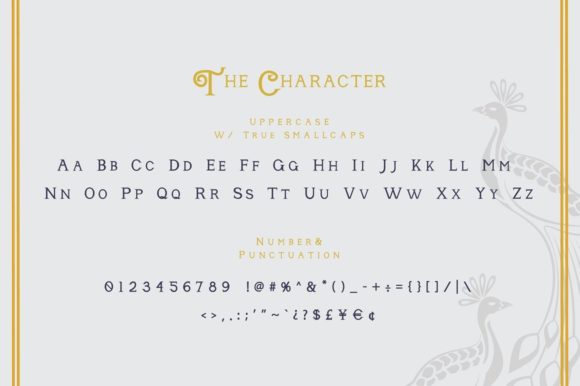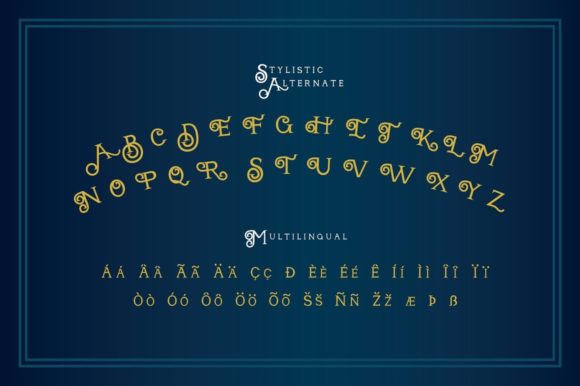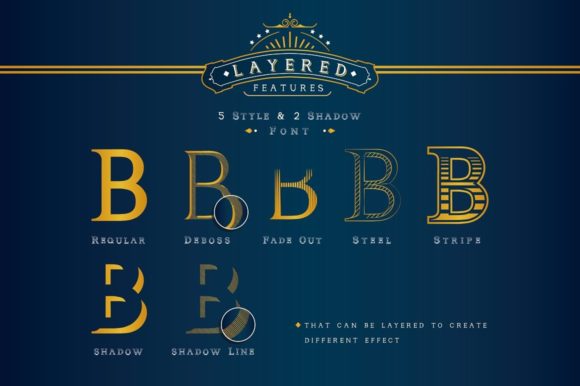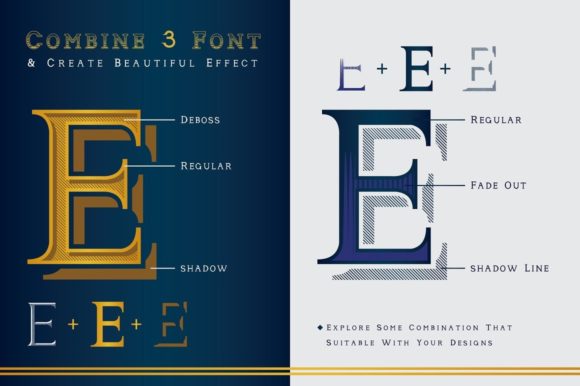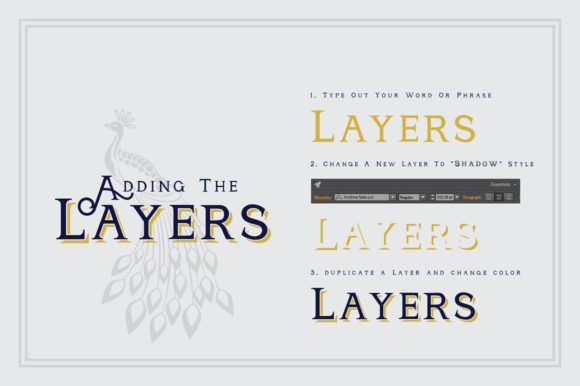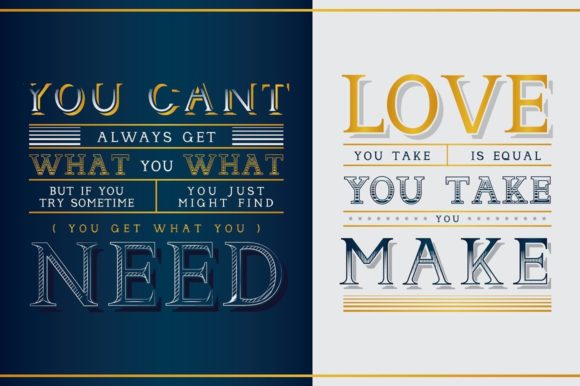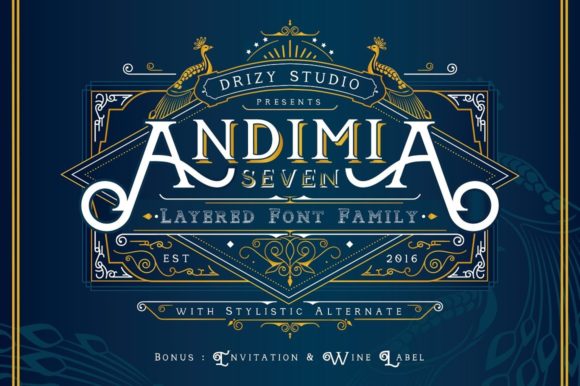
Introducing Andimia Font: Elevate Your Designs with Elegance and Sophistication
In the world of typography, a font can make or break a design. It’s the foundation upon which creativity is built, and the right choice can elevate a project from ordinary to extraordinary. For designers and crafters seeking a typeface that exudes elegance and assertiveness, look no further than Andimia Font. This stunning serif font is not only visually striking but also highly versatile, making it an excellent addition to any creative arsenal.
The Characteristics of Andimia Font
Andimia Font is distinguished by its elegant and assertive serif design. The serifs, with their subtle flair and refined lines, add a touch of sophistication to any text, making it perfect for projects that demand a high level of formality or luxury. Whether you’re working on a branding project, a wedding invitation, or a high-end product catalog, Andimia Font brings a level of class and refinement that’s hard to match.
PUA Encoding for Ease of Use
One of the standout features of Andimia Font is its PUA (Private Use Area) encoding. This means that the font includes a wide range of glyphs and swashes that can be easily accessed and used to enhance your designs. PUA encoding allows designers to tap into these additional characters without needing specialized software, making it straightforward to add intricate details and unique touches to your work. With Andimia Font, you can let your creativity run wild, experimenting with different swashes and glyph combinations to achieve the perfect look.
Applications of Andimia Font
The versatility of Andimia Font makes it suitable for a wide array of design applications. Here are just a few examples of how you can use this beautiful font:
- Branding and Logotypes: The elegant serifs and range of swashes make Andimia Font an excellent choice for logos and brand identities that require a touch of sophistication.
- Wedding and Event Stationery: Create stunning wedding invitations, save the dates, and event programs that set the tone for a luxurious and memorable occasion.
- Packaging Design: Elevate product packaging with a font that communicates luxury, quality, and attention to detail.
- Web and Digital Design: Use Andimia Font for website headers, blog posts, and digital marketing materials to add a level of elegance and professionalism.
Tips for Getting the Most Out of Andimia Font
To truly make Andimia Font shine in your designs, consider the following tips:
- Experiment with Swashes: Don’t be afraid to try out different swashes and glyphs to add unique touches to your text.
- Mix and Match: Combine Andimia Font with other typefaces to create visual interest and hierarchy in your designs.
- Pay Attention to Spacing: Ensure that your text is easy to read by paying close attention to letter spacing and line height.
Andimia Font is a powerful tool for designers and crafters looking to infuse their projects with elegance and sophistication. Its assertive yet refined serif design, combined with PUA encoding for easy access to glyphs and swashes, makes it an incredibly versatile typeface. Whether you’re working on a high-end branding project, a luxury product catalog, or a wedding invitation, Andimia Font is sure to elevate your design and leave a lasting impression. So why settle for ordinary when you can create something extraordinary with Andimia Font?